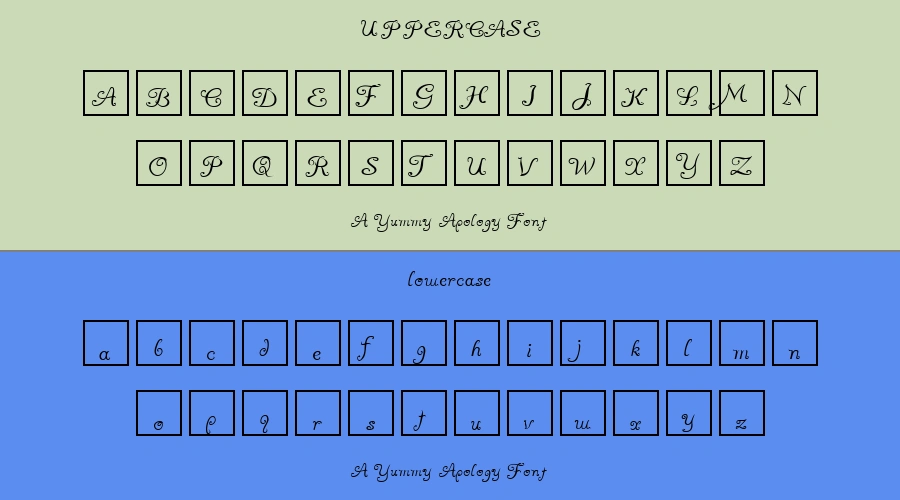
About A Yummy Apology Font
A Yummy Apology Font represents a sophisticated approach to type design, balancing flowing forms with accuracy. Perfect for book design, this font family showcases impressive clarity and user trust throughout its character set. Designers appreciate its versatility and reliability.
Designers will appreciate nuanced touches including script connections and logotype support, adding sophistication to any project. These features become apparent in academic theses, where versatility matters most. The careful treatment of aperture size and scientific authority ensures optimal performance.